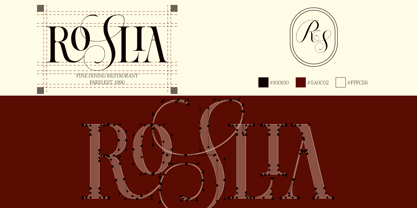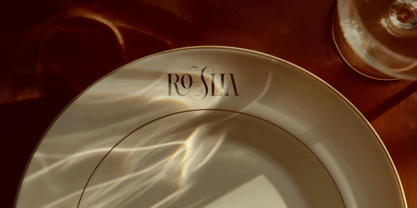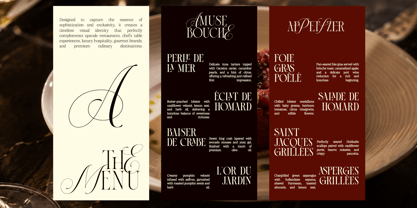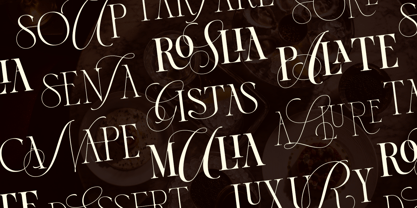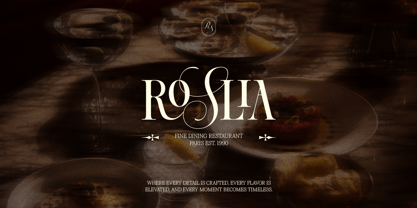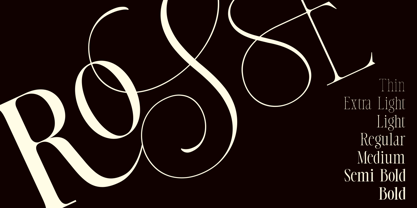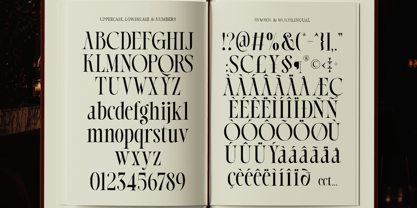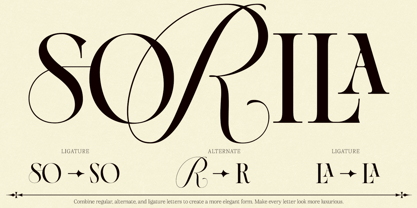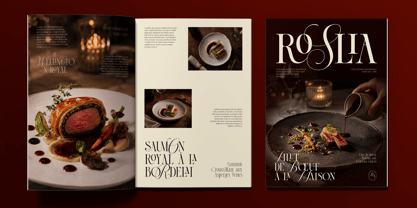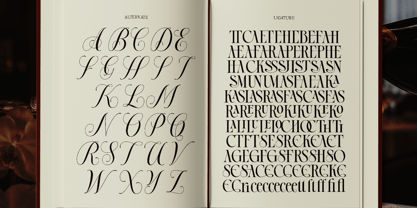
Dh Alista Aghni
von Ahmad Jamaludin
Die Schriftfamilie Dh Alista Aghni wurde von Sagara Nararya entworfen und von Ahmad Jamaludin veröffentlicht. Dh Alista Aghni enthält 7 Stile und Familienpaketoptionen. Mehr über diese Familie
Dh Alista Aghni is an elegant serif font family created for luxury branding, fashion labels, beauty packaging, wedding stationery, editorial publishing, and hospitality brands. Designed for logos, magazine headlines, product packaging, invitations, and book covers, Dh Alista Aghni creates a refined and premium visual identity. Inspired by timeless serif typography, the overall look feels sophisticated, graceful, and luxurious.
Dh Alista Aghni Font Features:
• 7 Weights: Thin, Extra Light, Light, Regular, Medium, Semi Bold, Bold
• 103+ Elegant Alternates and Ligatures
• Letters, numbers, symbols, punctuation, special alternates
Multilingual Characters available for:
Afrikaans, Albanian, Asu, Basque, Bemba, Bena, Breton, Chiga, Cornish, Dutch, English, Estonian, Filipino, Finnish, Friulian, Galician, German, Gusii, Indonesian, Irish, Italian, Kabuverdianu, Kalenjin, Kinyarwanda, Luo, Luxembourgish, Luyia, Machame, Makhuwa-Meetto, Makonde, Malagasy, Manx, Morisyen, North Ndebele, Nyankole, Oromo, Portuguese, Quechua, Romansh, Rombo, Rundi, Rwa, Samburu, Sango, Sangu, Scottish Gaelic, Sena, Shambala, Shona, Soga, Somali, Spanish, Swahili, Swedish, Swiss.